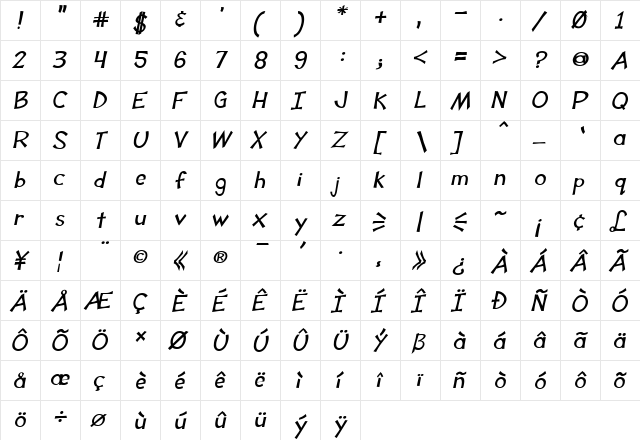
Tooney Loons Bold Italic
| Foundry | Jason L. Arthur |
| Designer | Jason Arthur |
Design Context for Tooney Loons Typeface
Tooney Loons is a composed and adaptable typeface that performs quietly and consistently across a wide range of design contexts. The dynamic lean of this cut emphasises speed and emphasis in any layout. The heavy weight commands attention and anchors typographic hierarchies.
Pro Tip: Use Tooney Loons for emphasis, pull quotes, and subheadings where its slanted energy can add rhythm to the layout.